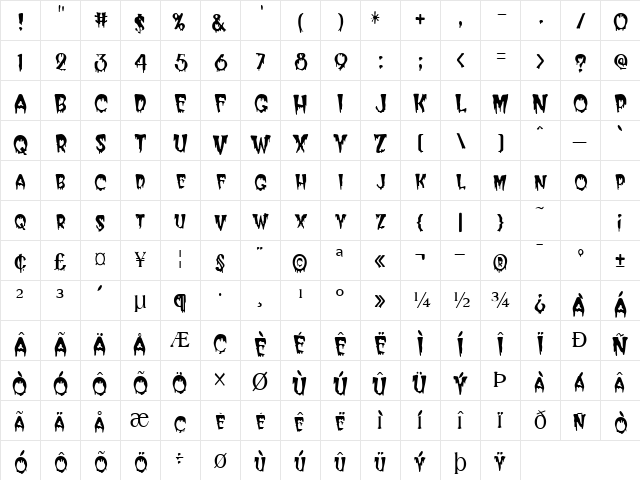
RoaringFire96 Regular
RoaringFire96 Family
Design Context for RoaringFire96
RoaringFire96 is a composed and adaptable typeface that performs quietly and consistently across a wide range of design contexts.